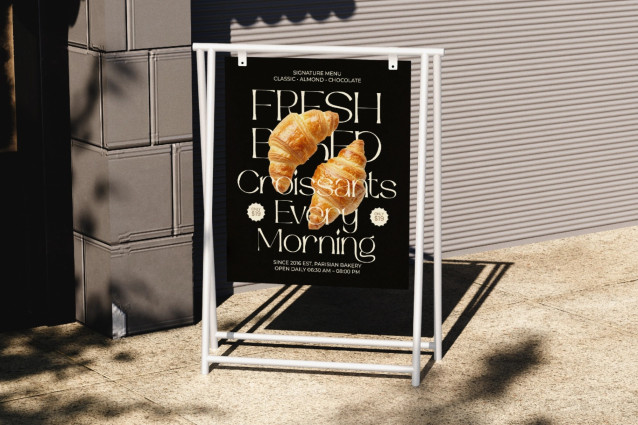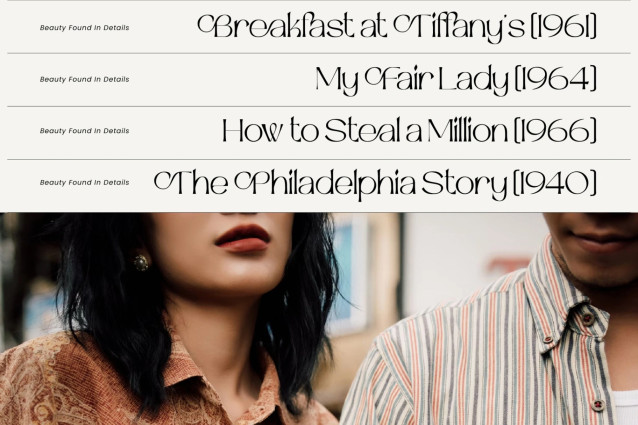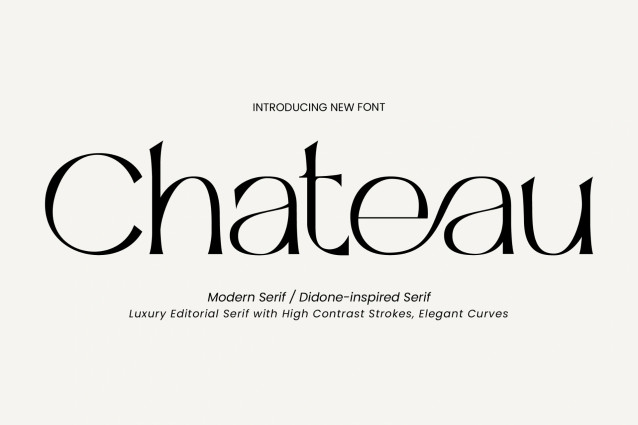
Chateau Font
Chateau Font is an elegant serif font that blends timeless sophistication with contemporary refinement. Designed with graceful proportions, delicate contrasts, and beautifully crafted details, this typeface captures the essence of luxury and classic beauty. Its refined letterforms create a polished and distinguished appearance, making Chateau an excellent choice for premium branding, editorial design, fashion campaigns, and upscale packaging. Every character is carefully balanced to deliver exceptional readability while maintaining a strong visual presence. Inspired by the elegance of classic European typography, Chateau brings a sense of prestige and sophistication to modern creative projects. Whether used for striking headlines, luxury logos, or refined editorial layouts, it provides a distinctive typographic voice that feels both timeless and fashionable. The combination of elegant curves, sophisticated structure, and premium aesthetics makes Chateau a versatile typeface suitable for brands seeking a luxurious and memorable identity.